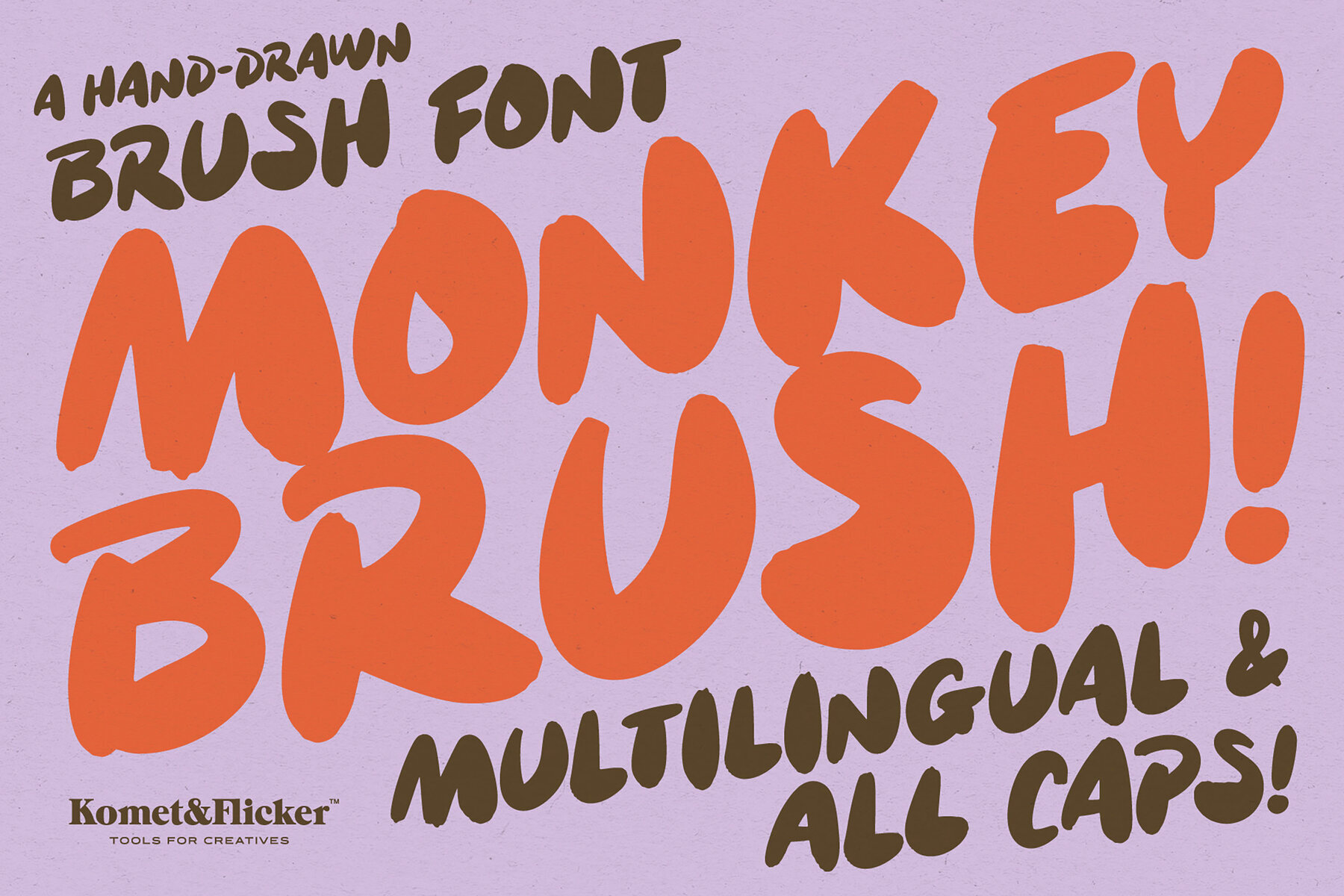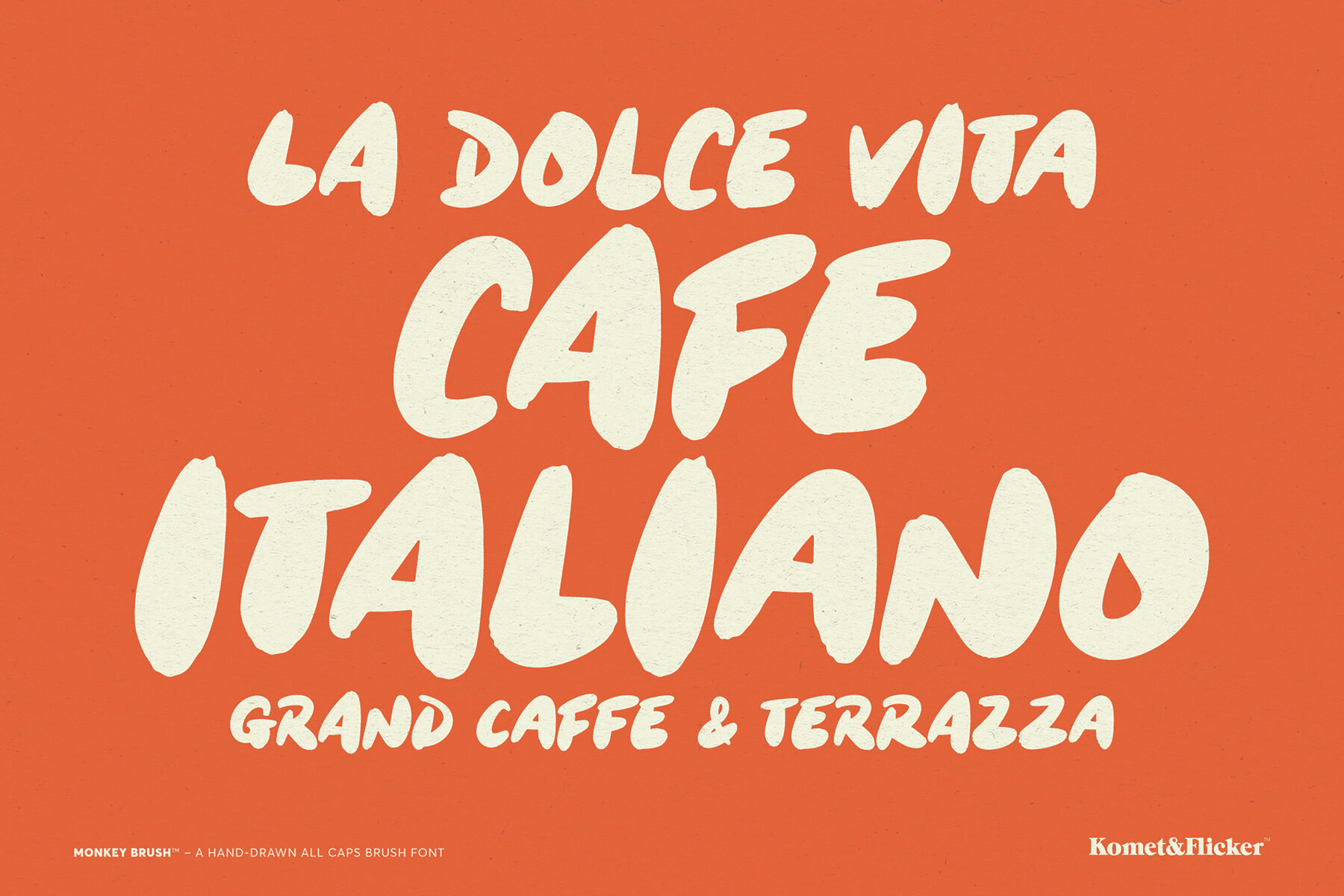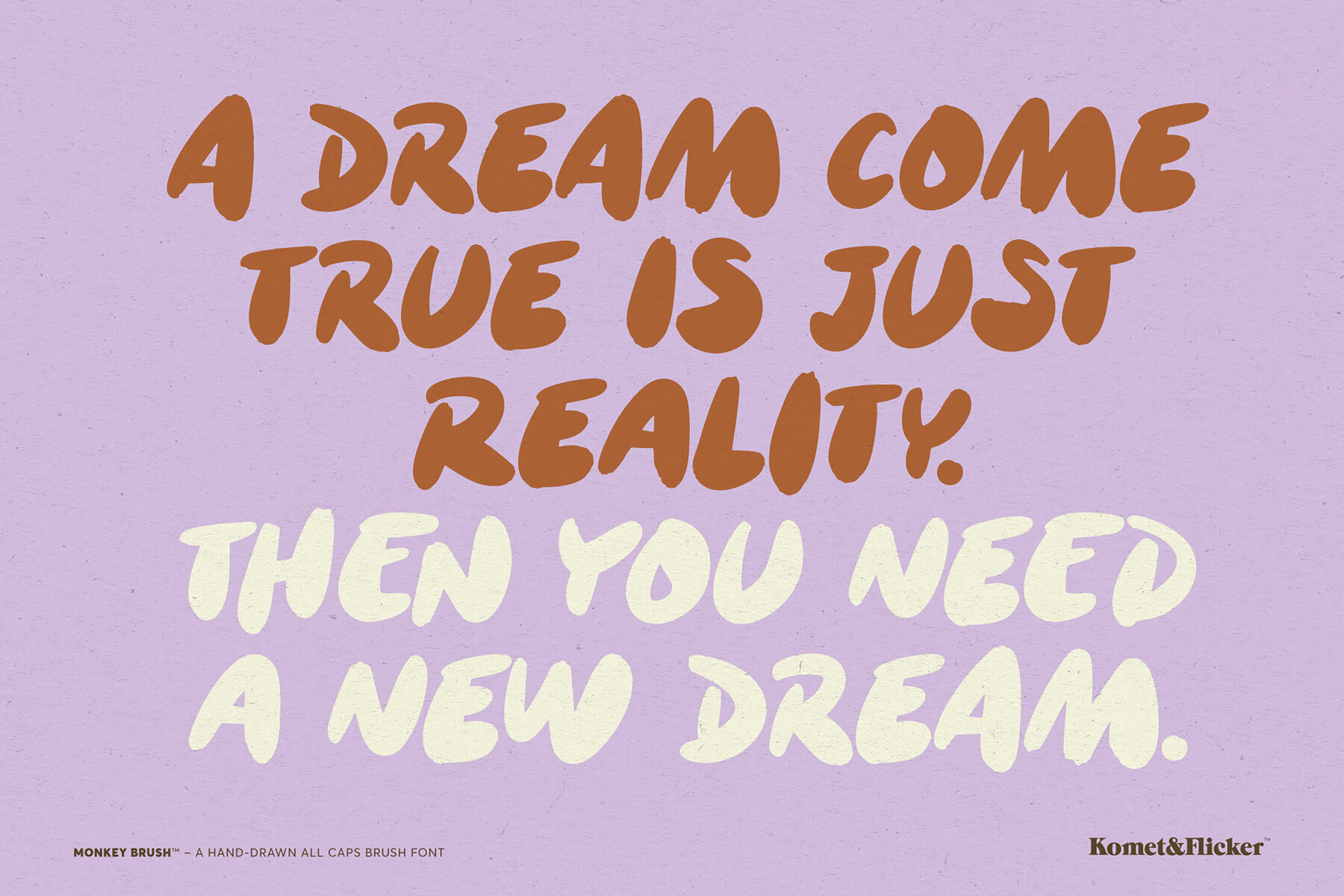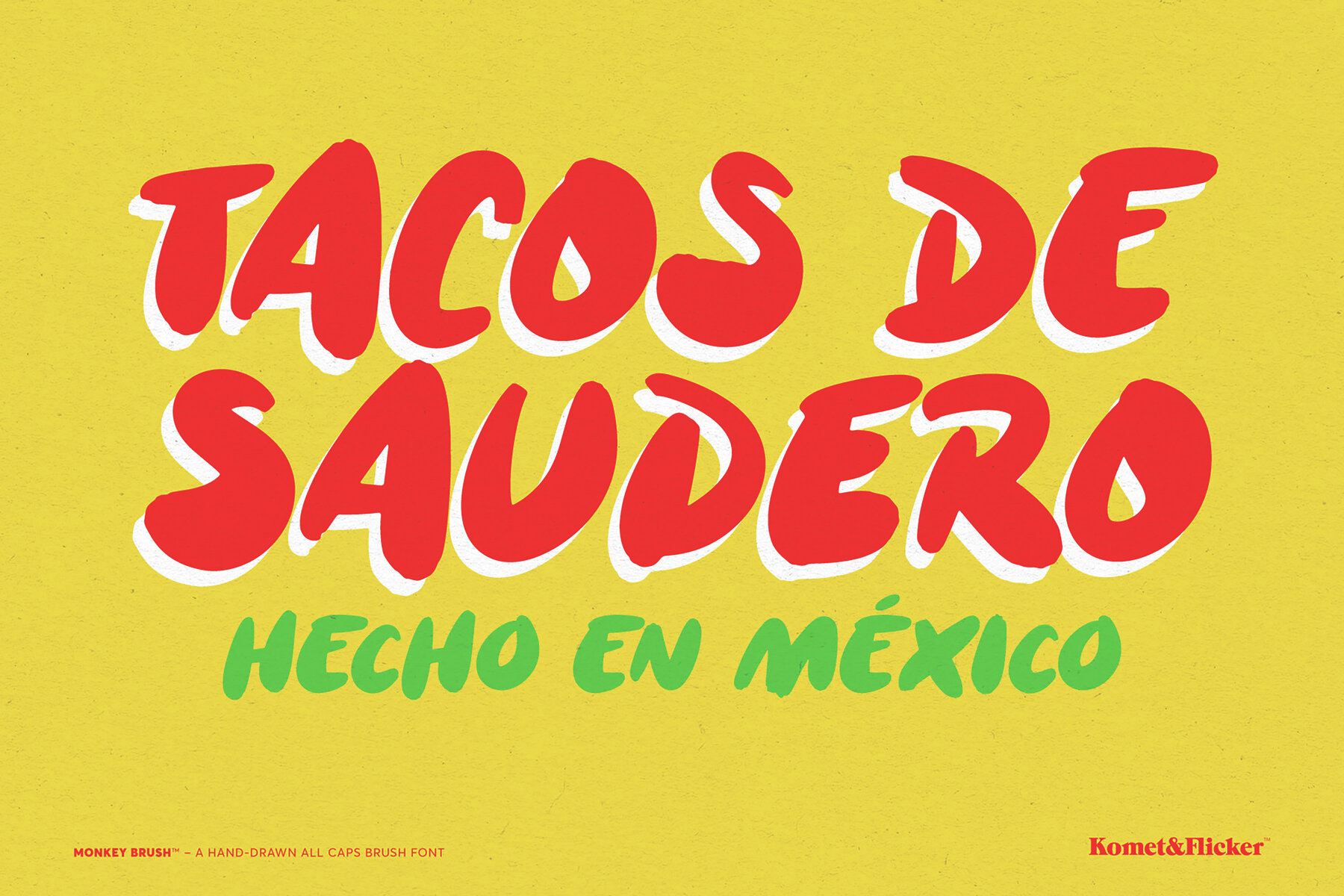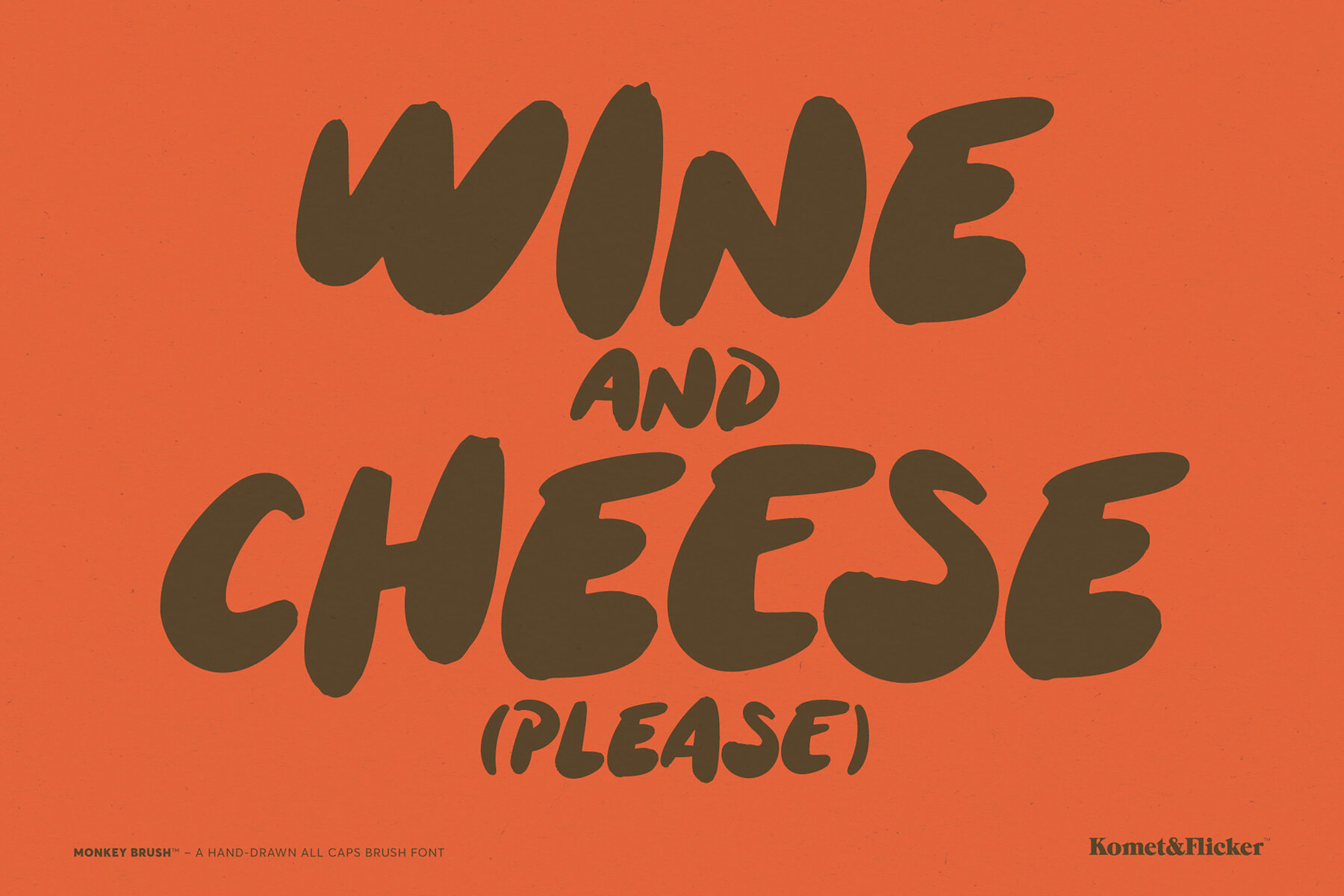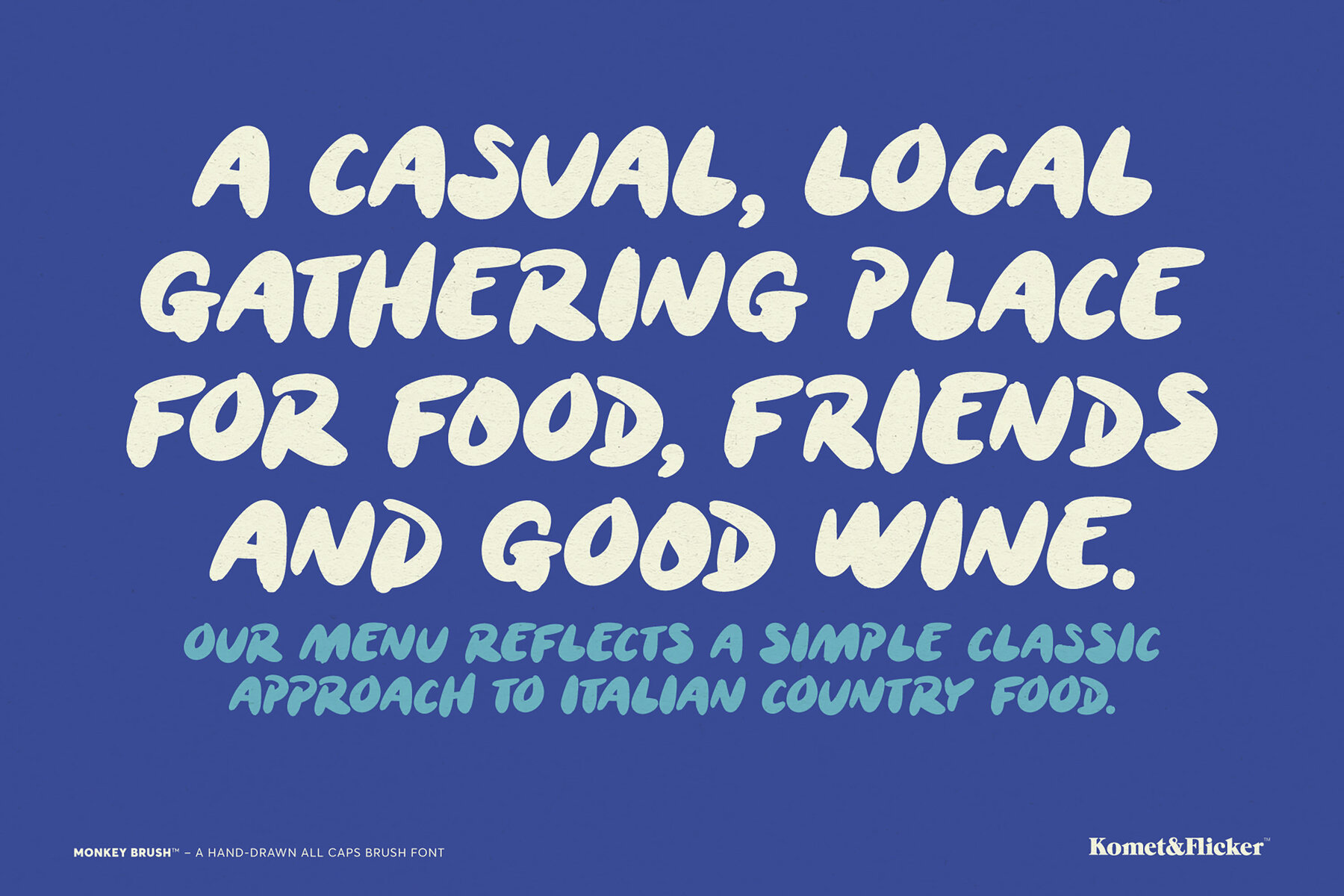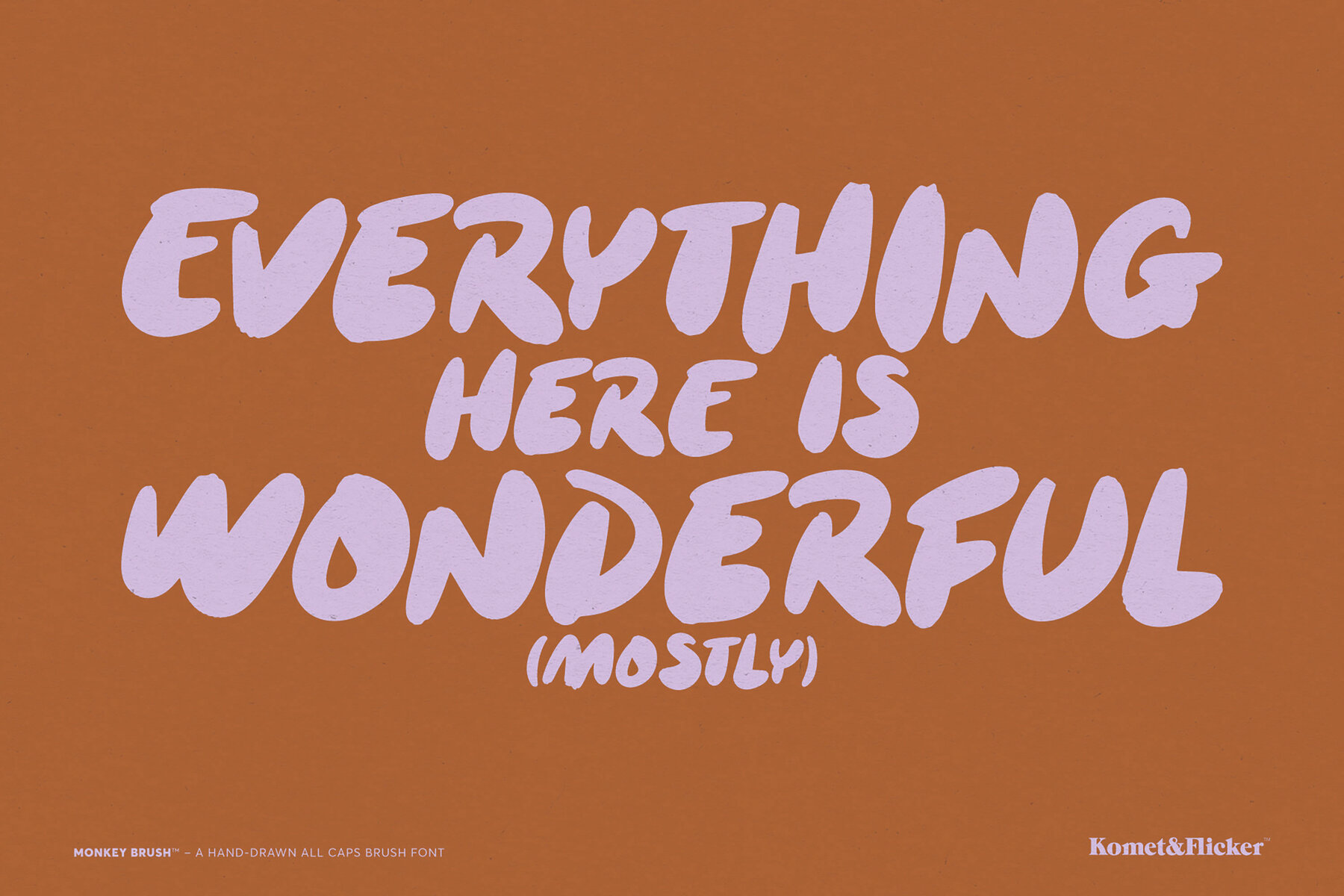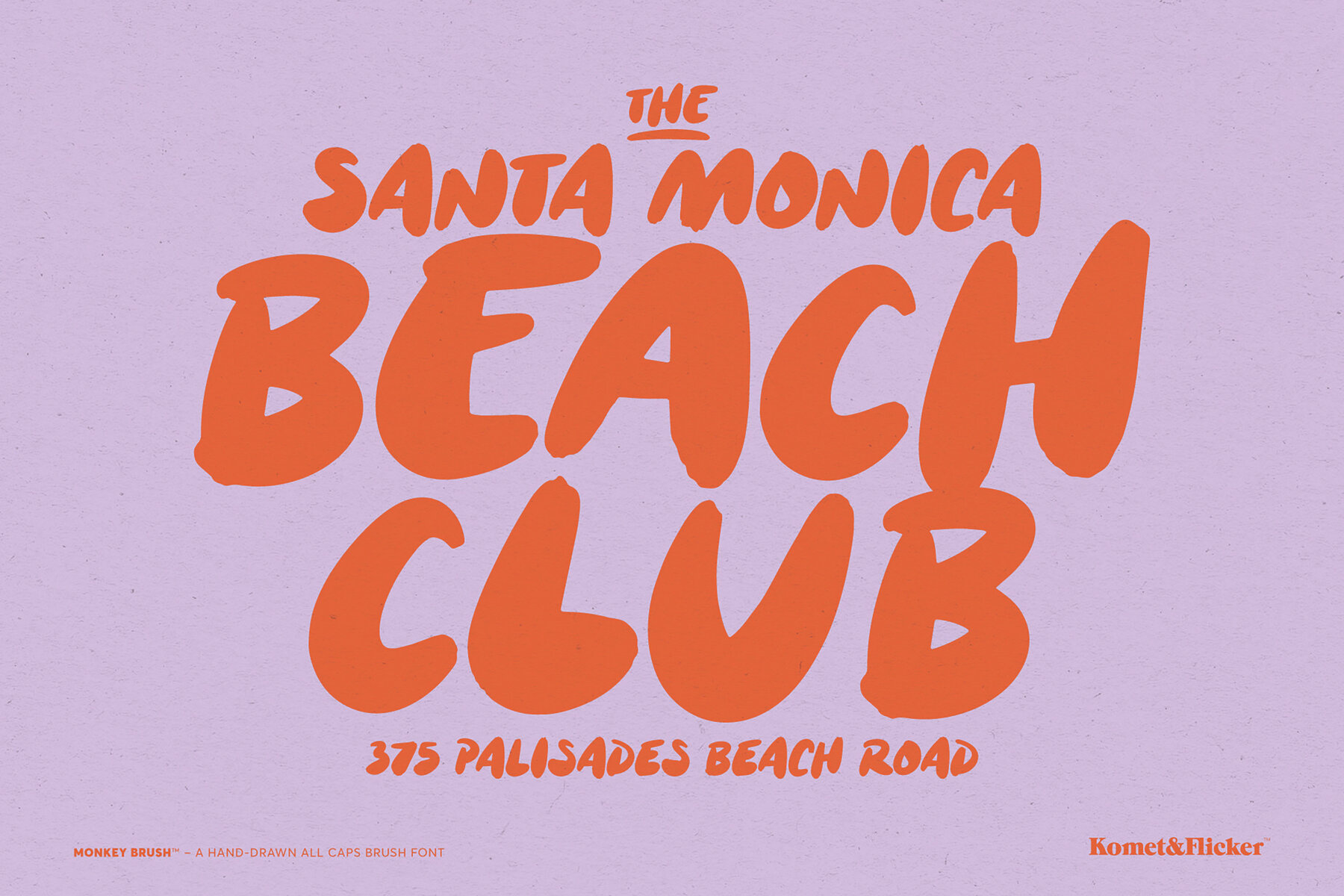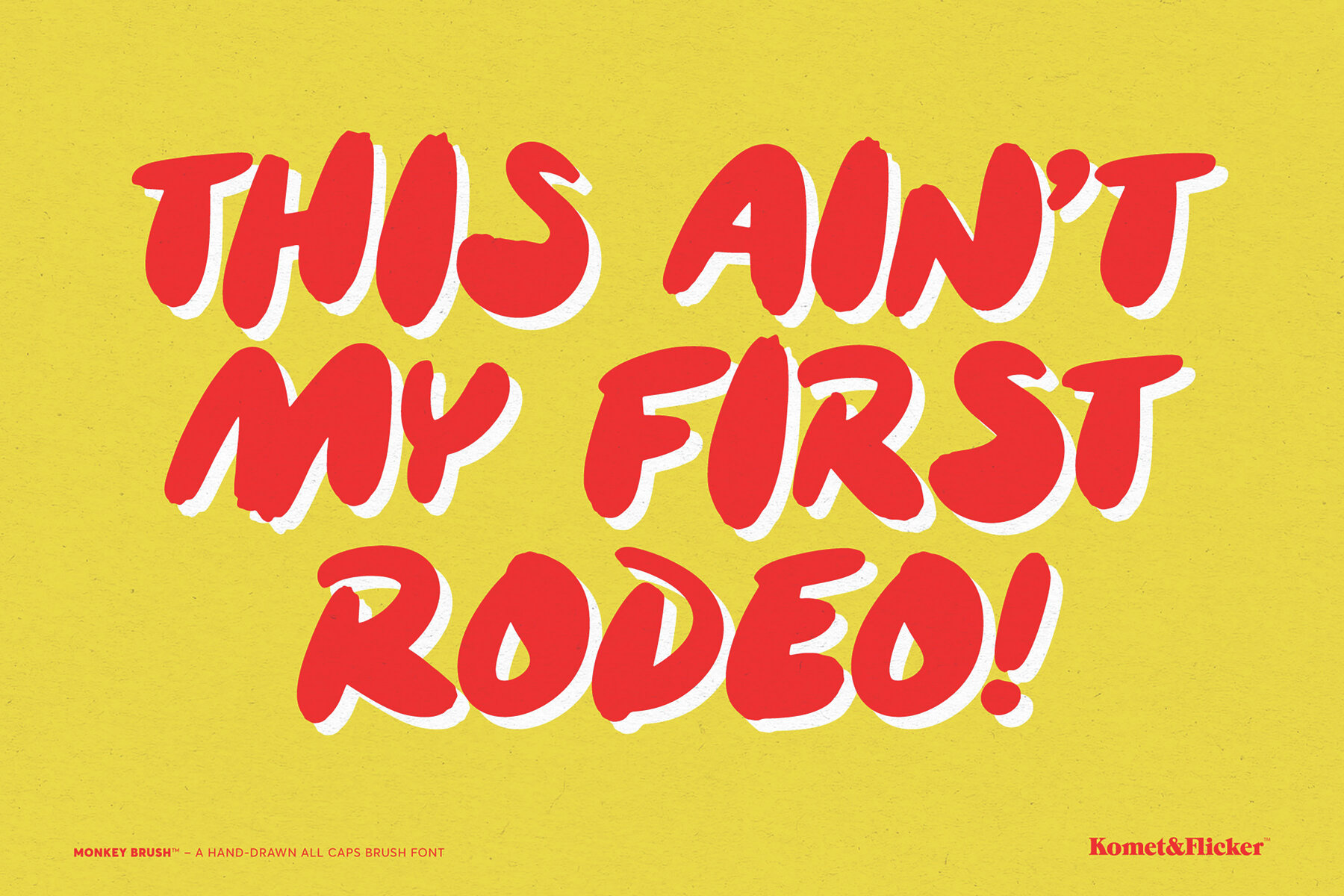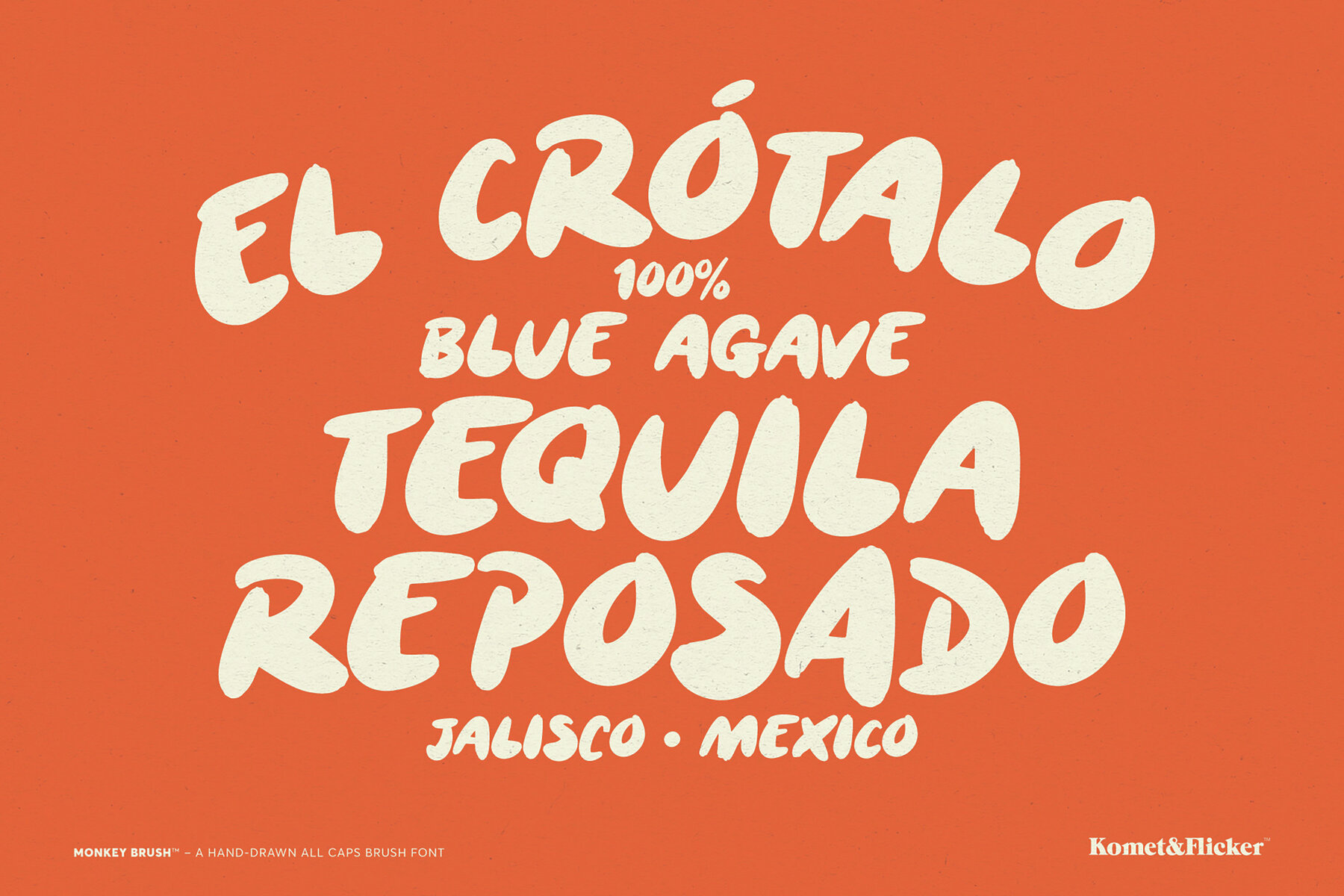
Monkey Brush Font
Monkey Brush Bold
Meet Monkey Brush, a hand-drawn brush script font that captures a playful and lively spirit. With its roots in spontaneous strokes and free-spirited lettering, this font injects bold, fun-loving energy into your design projects. Crafted with authentic brush textures, each letter offers a genuine handmade look. Its relaxed strokes and spirited vibe make it ideal for any project needing a fresh, artisanal flair. In Illustrator, access extra custom glyphs via the "Type → Glyphs" panel. In Photoshop, find them through "Type → Panels → Glyphs Panel."Monkey Brush: Playful Hand-Drawn Brush Script